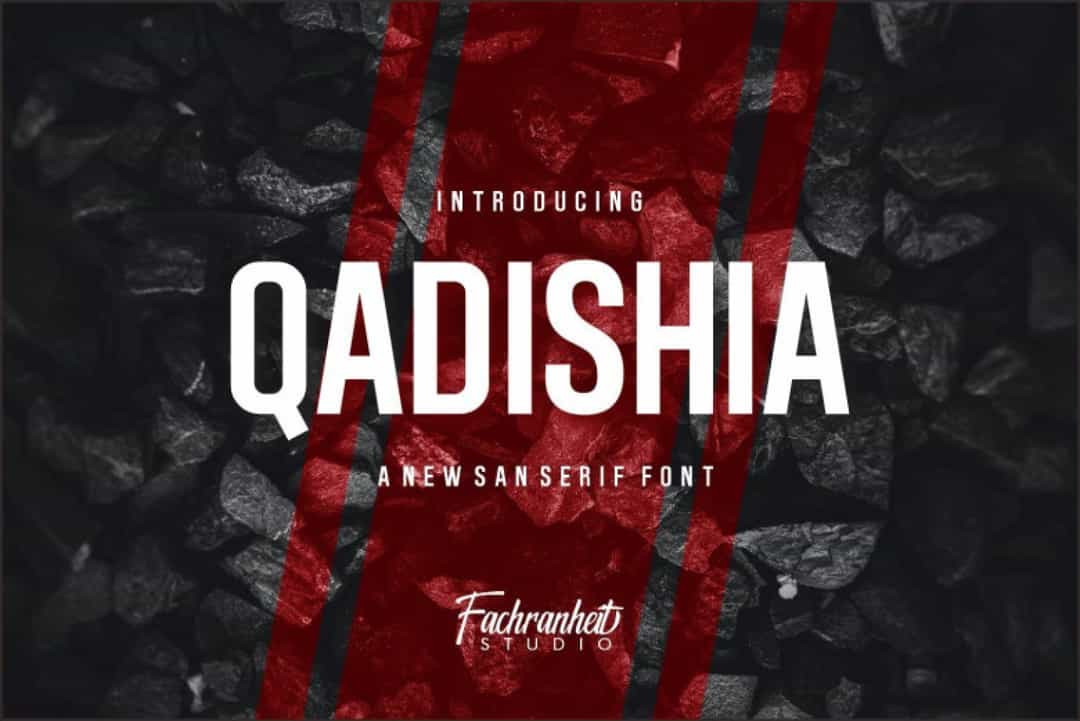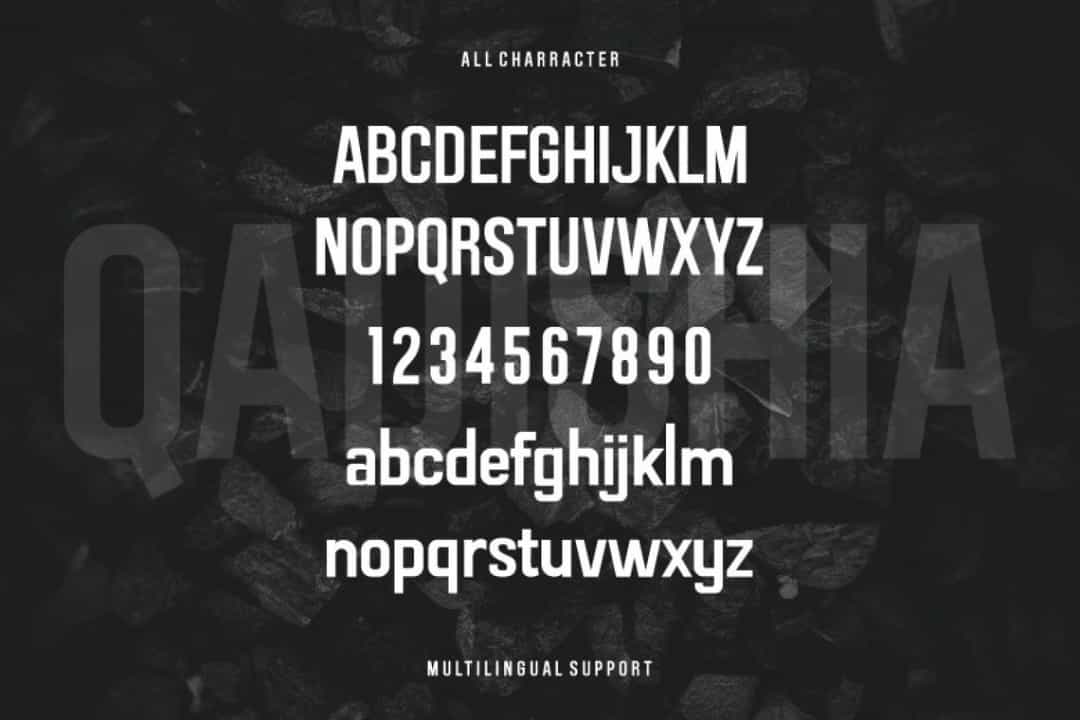
Qadishia is a modern and sans serif font. Versatile and easily applicable for different projects – movie posters, headlines for flyers, logotypes and packaging labels are only a few of the examples – this font is a perfect addition to your concepts! Try to include Qadishia in your concepts today and feel the difference it will make!